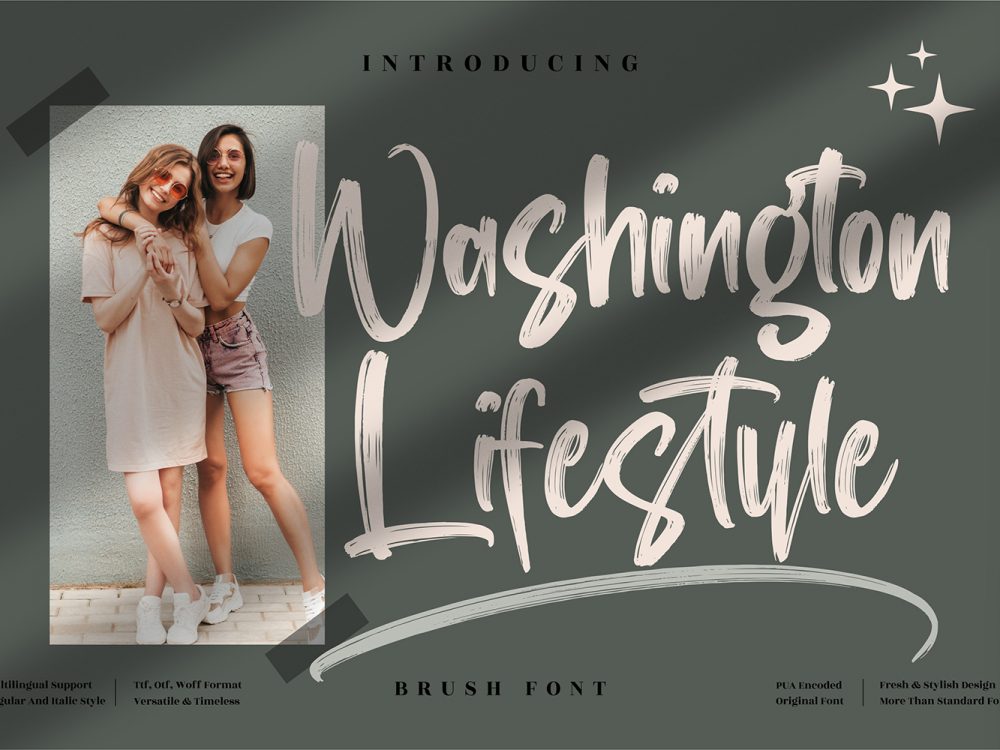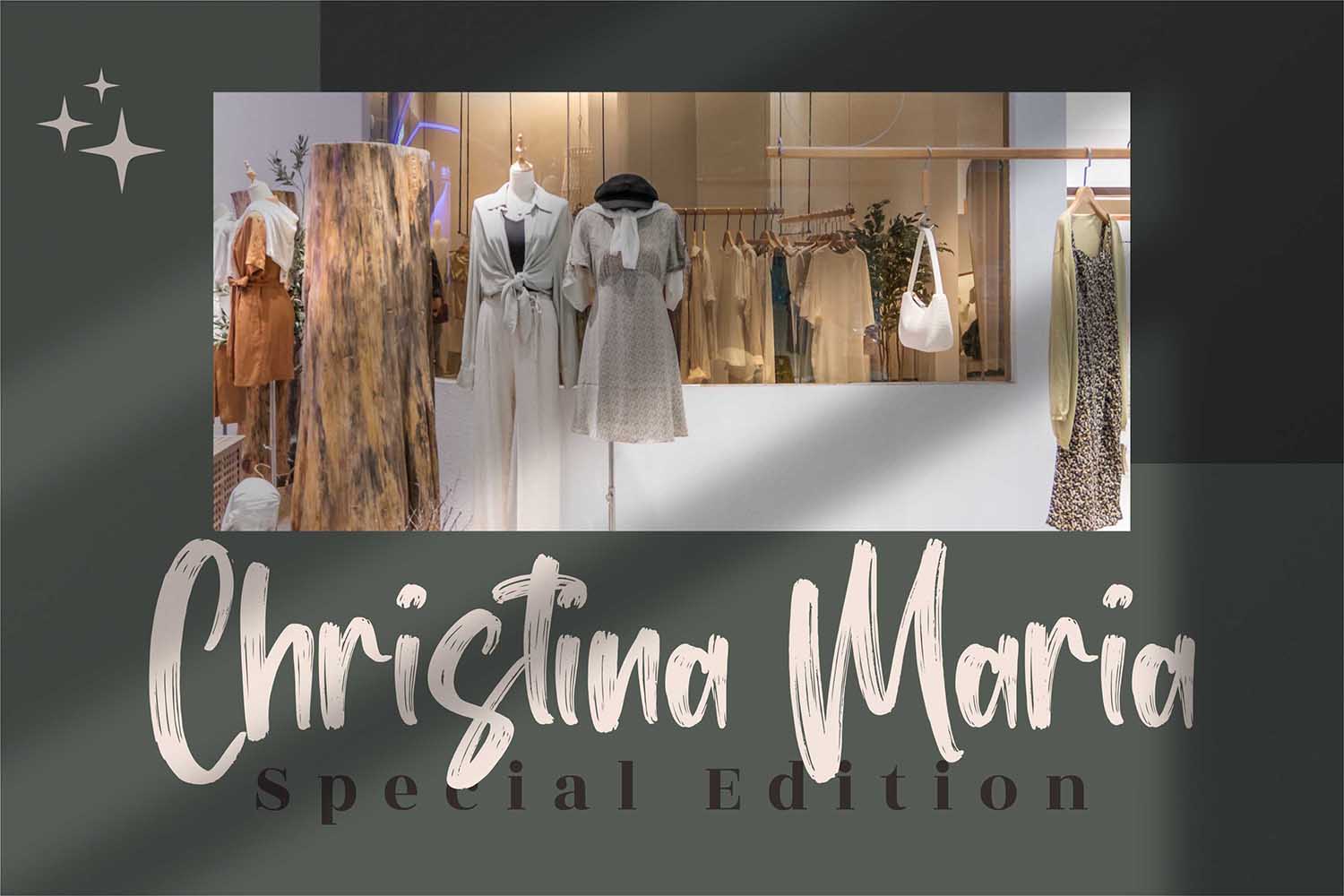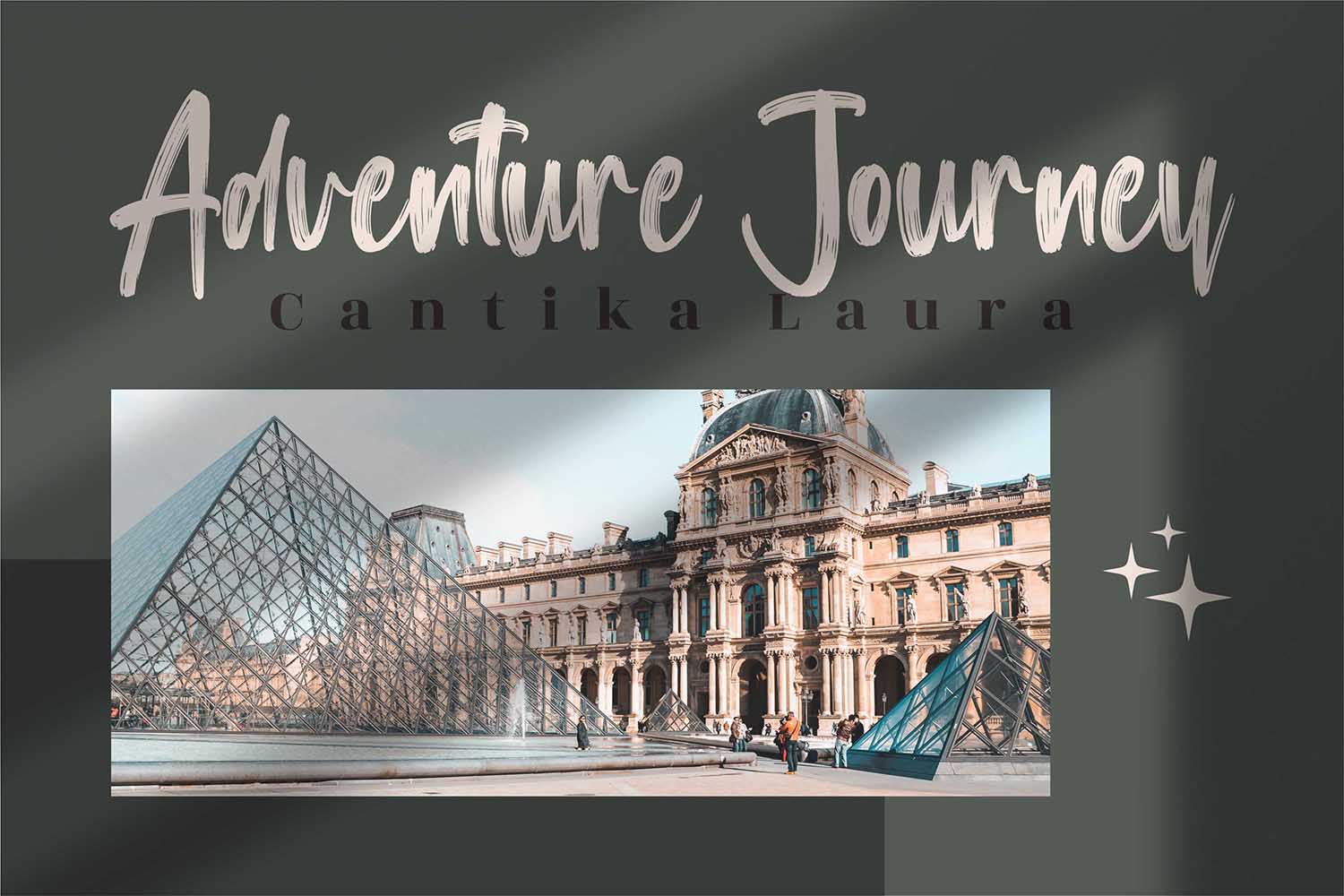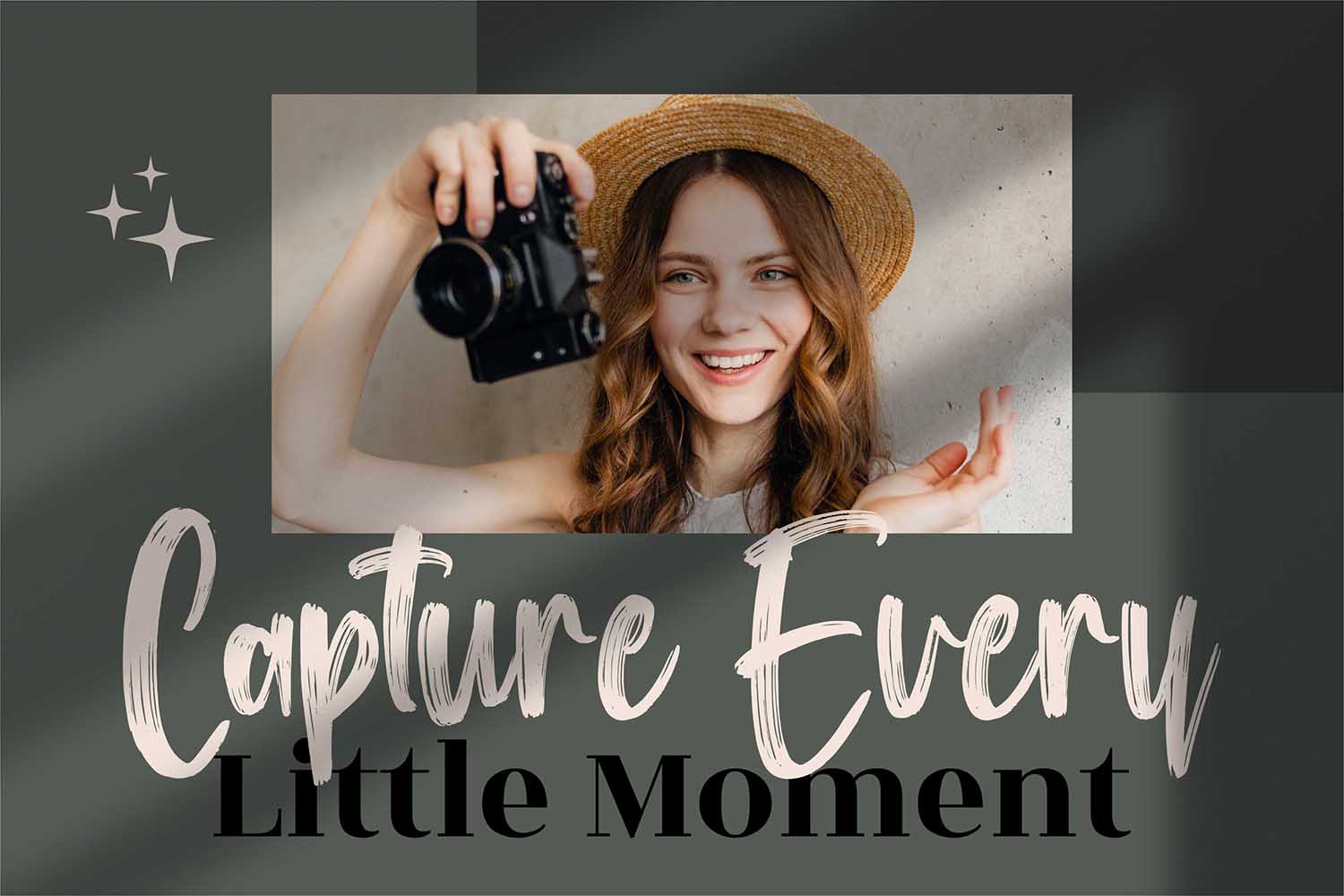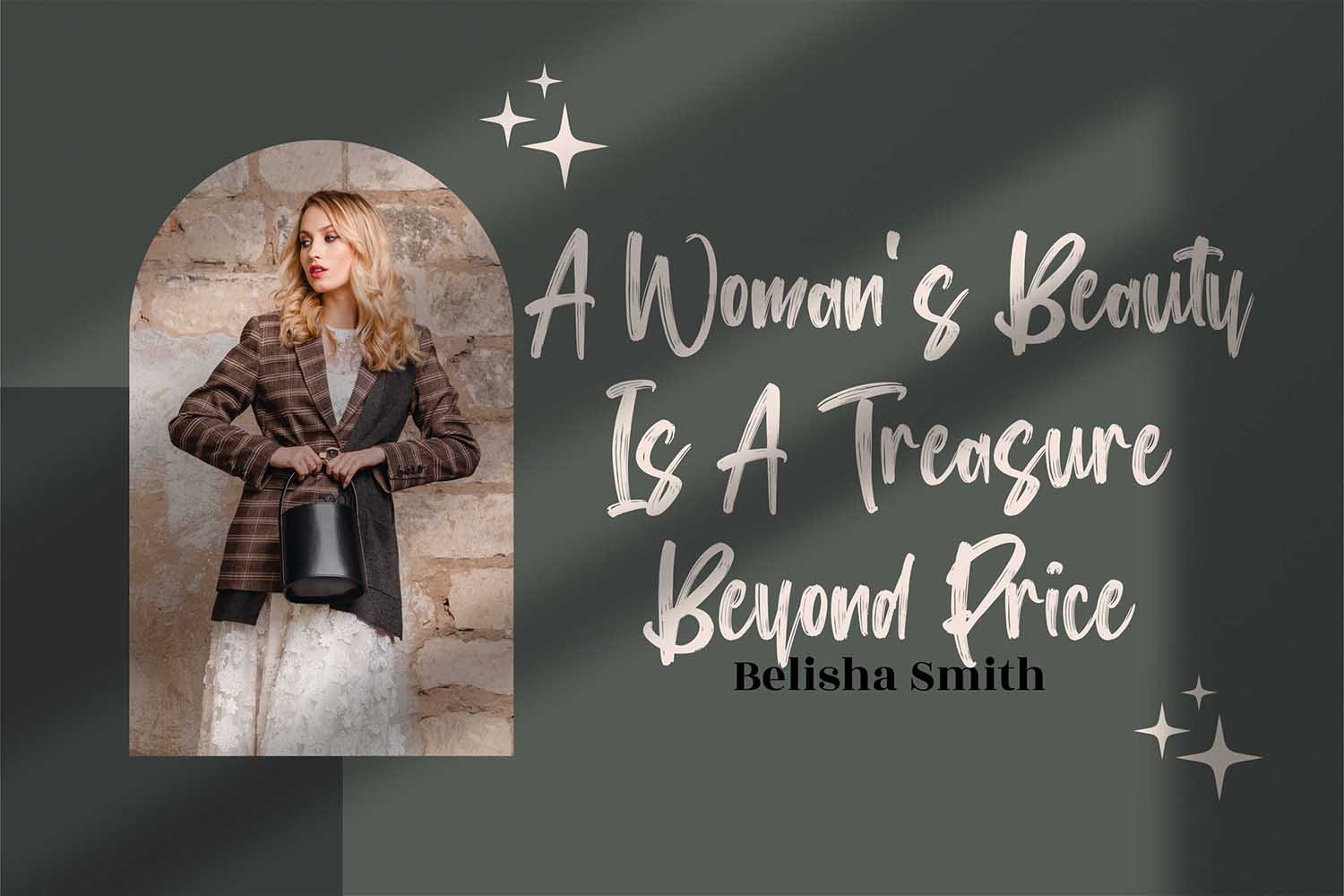
Washington Lifestyle Free Font
Washington Lifestyle Free Font is an interesting handwritten font that simulates writing with a brush. This font features elegant curves and is perfect for a variety of design projects such as posters, postcards, flyers, prints, and more. If you wish to access more features and use them for commercial work please buy the full version.
Author: Perspectype Studio